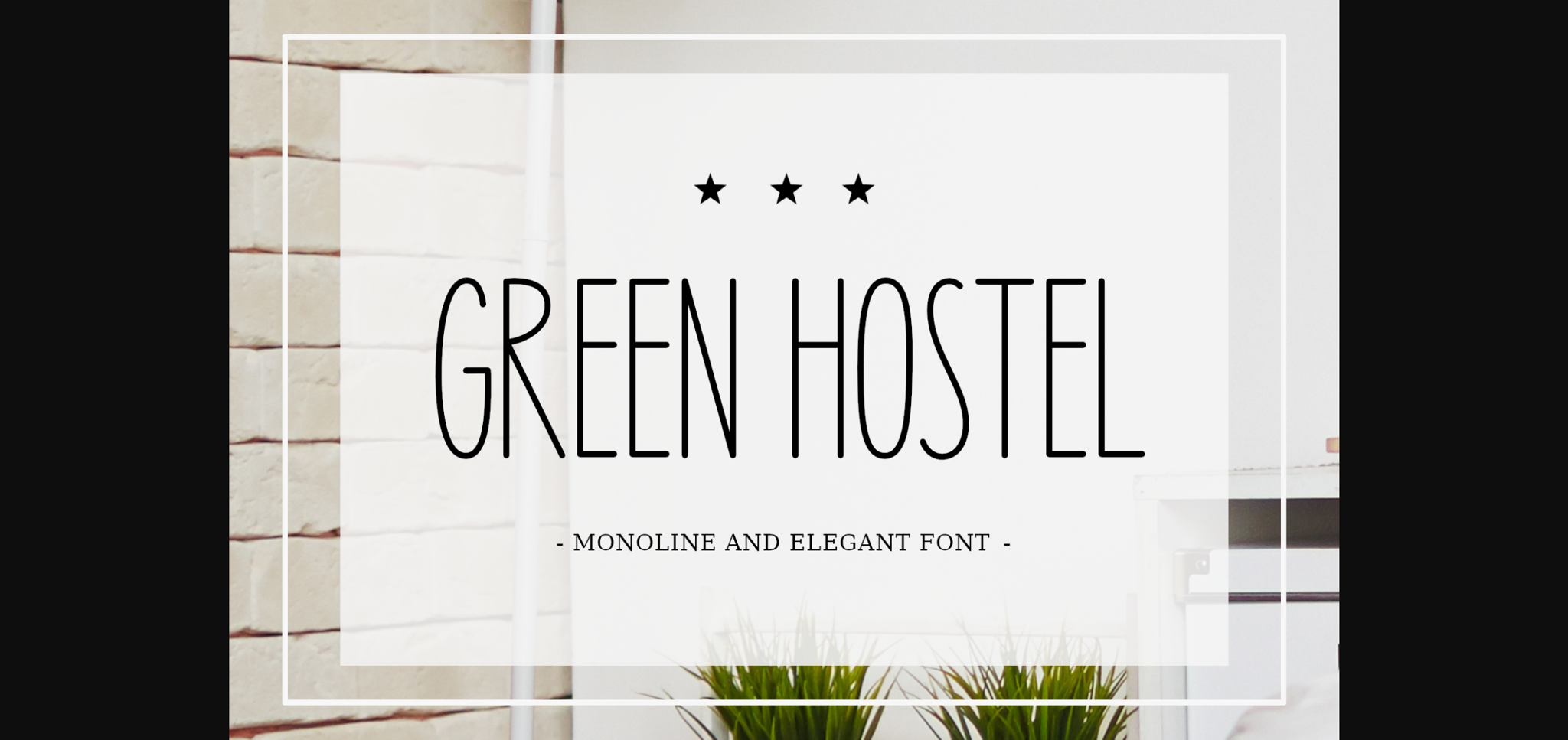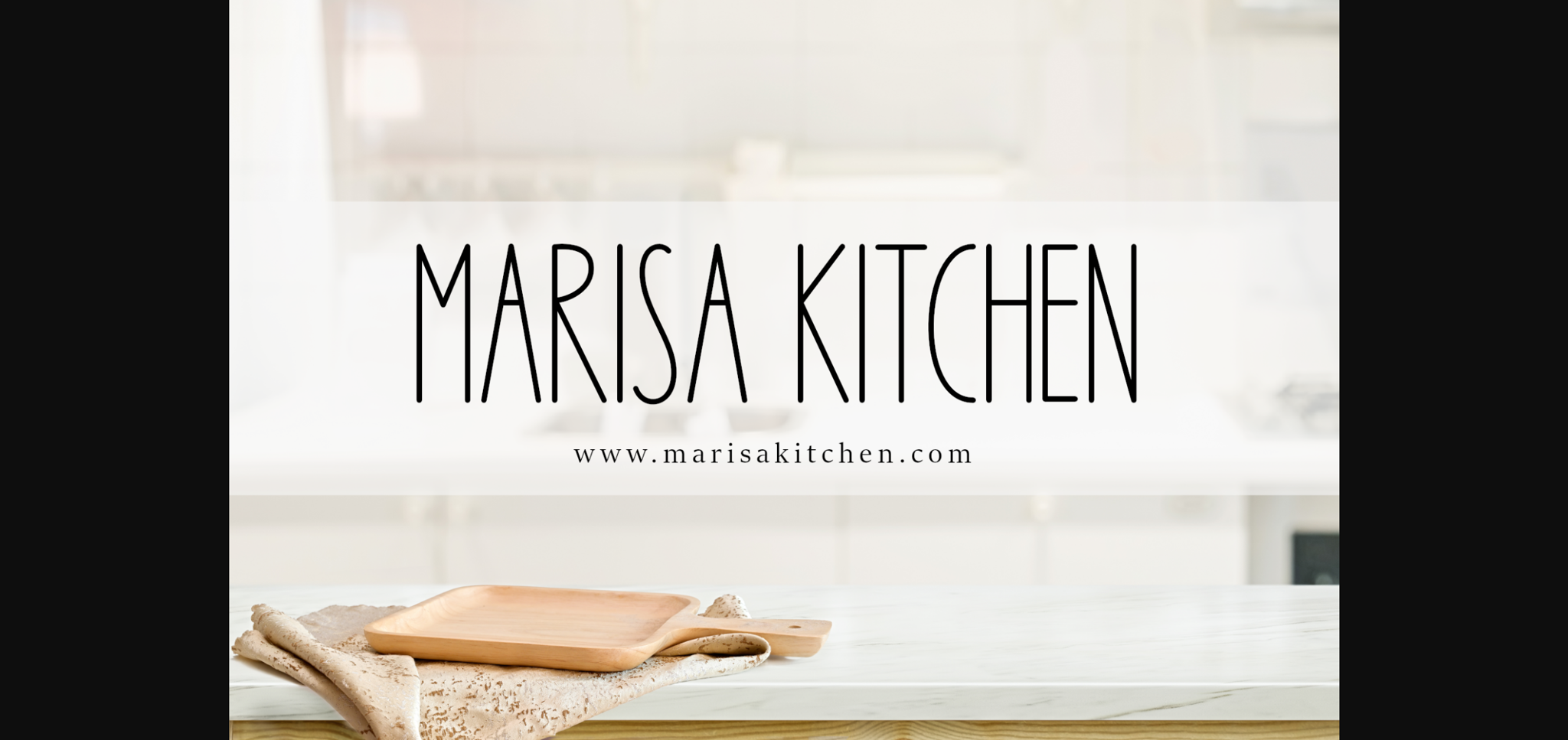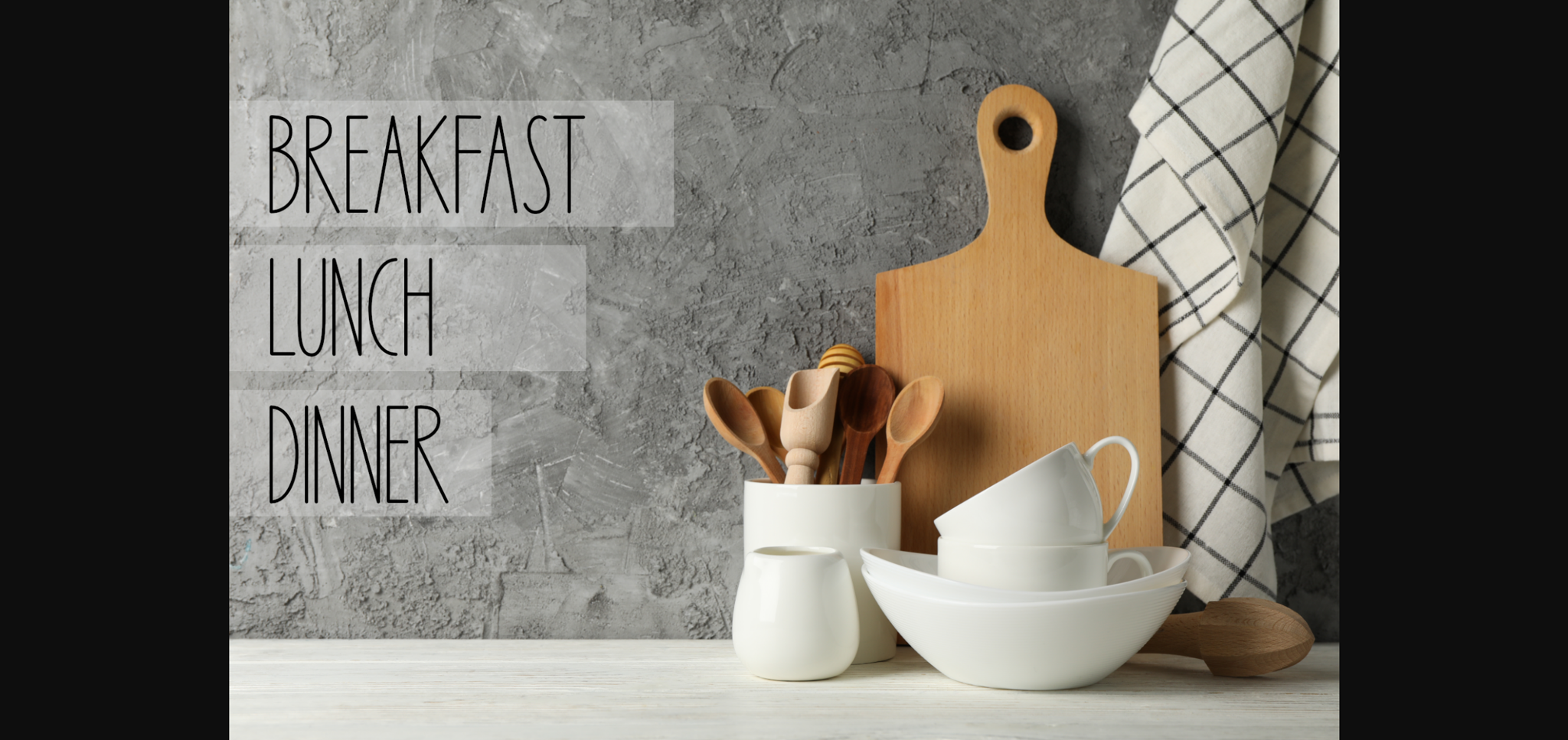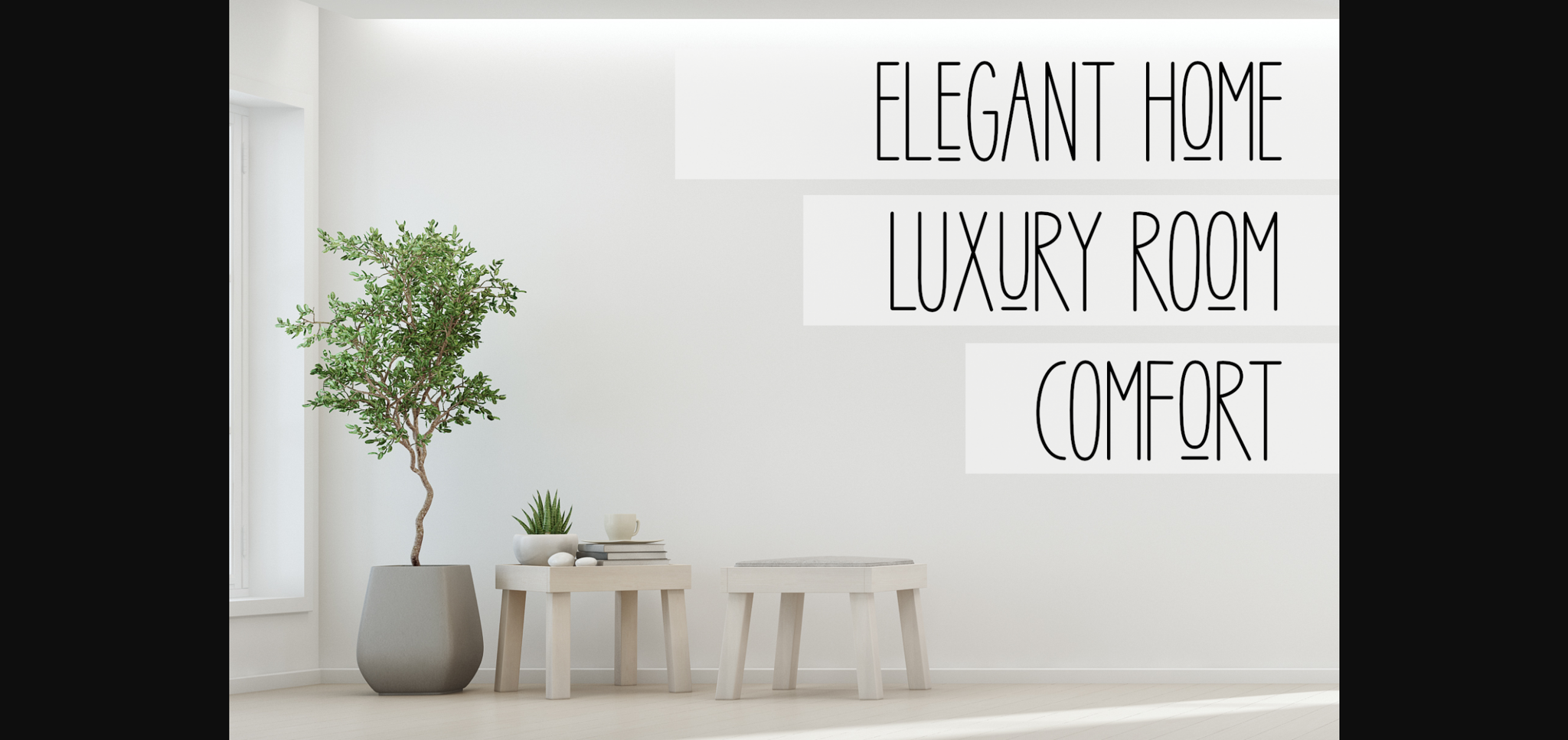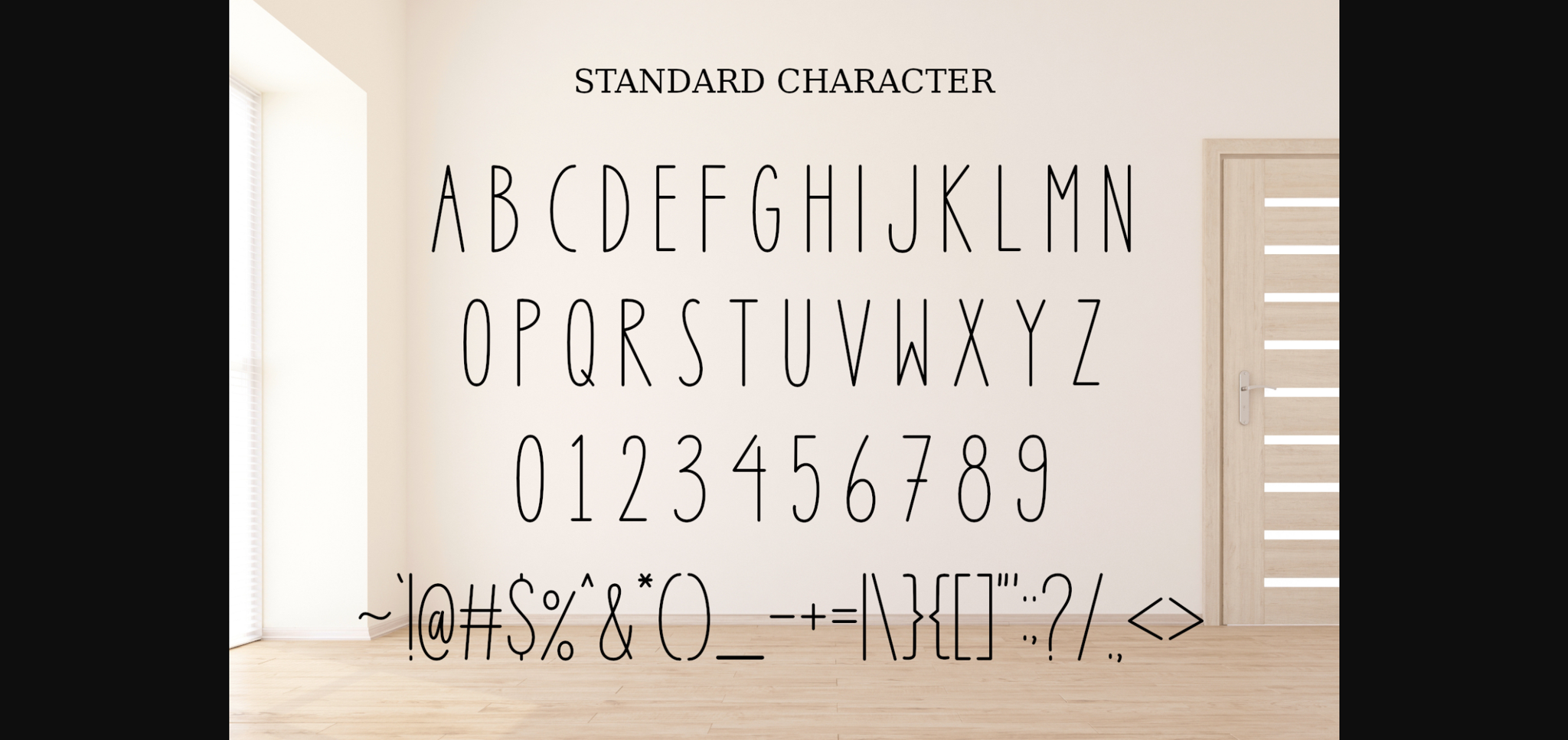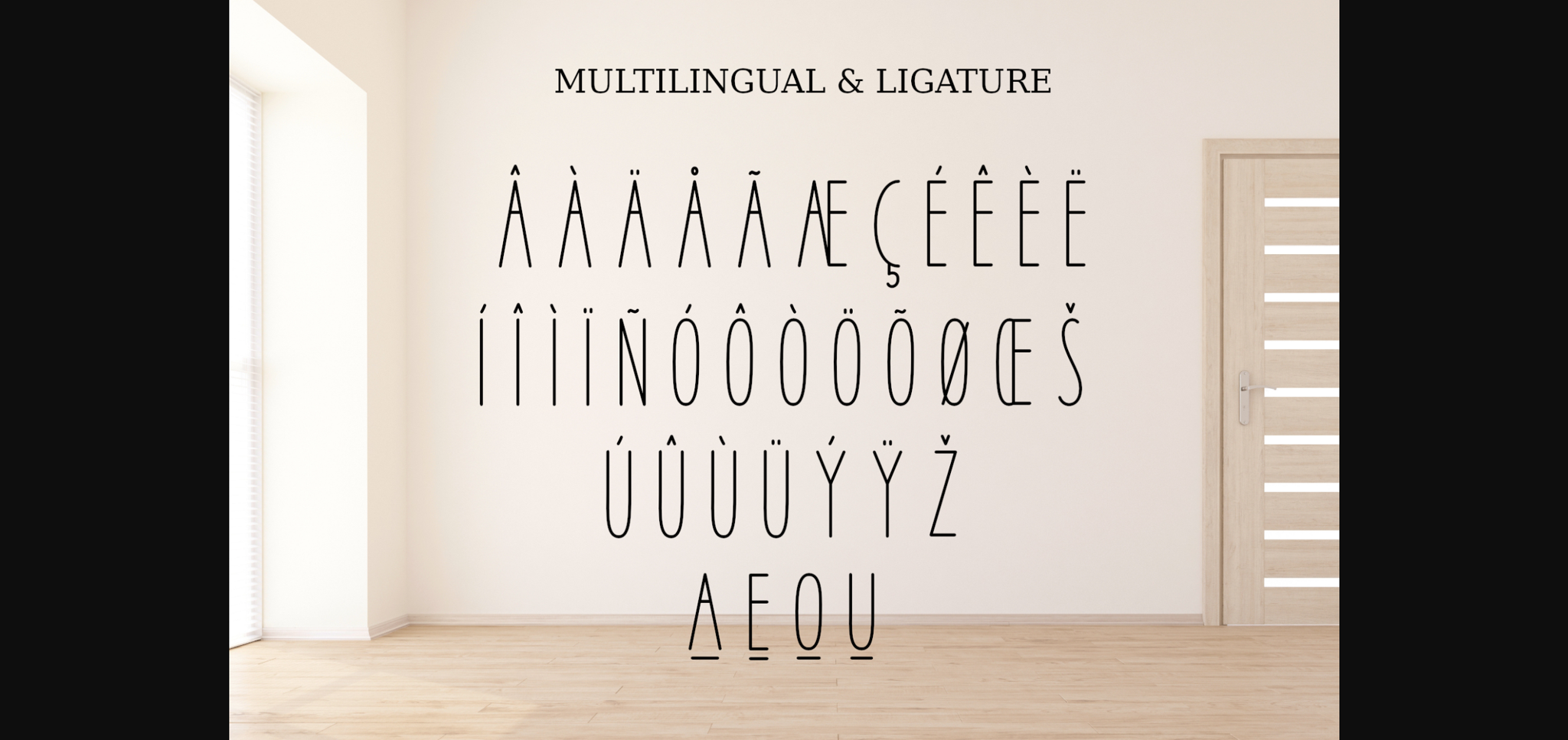
HomeSans Serif FontsGreen Hostel Font Sans Serif Fonts Green Hostel Font FacebookXPinterestWhatsApp 1 of 8 ... Green Hostel Font Poster 2... Green Hostel Font Poster 3... Green Hostel Font Poster 4... Green Hostel Font Poster 5... Green Hostel Font Poster 6... Green Hostel Font Poster 7... Green Hostel Font Poster 8... About Green Hostel Font Green Hostel is a thin and clean sans serif font. It can easily be matched to an incredibly large set of projects, so add it to your creative ideas and notice how it makes them stand out! DOWNLOAD NOW People also explored Olive Font Limitless Possibility Font Saleyon Font Migoove Font Gloss Sophia Rosabella Font Khalifah Font Saffior Font The Bright Road Font 274 0 TagsGreen Hostel Font Previous articleKalivo FontNext articleGalgony Font LEAVE A REPLY Cancel reply Comment: Please enter your comment! Name:* Please enter your name here Email:* You have entered an incorrect email address! Please enter your email address here Website: Save my name, email, and website in this browser for the next time I comment. Personal Use Free Goodline Font Personal Use Free Read more about this font Degrassi Personal Use Free Read more about this font Sushi Stroke Personal Use Free Read more about this font Sybil Green Personal Use Free Read more about this font BLOG Using Fonts in Digital Marketing: Tips to Strengthen Your Brand Identity In the realm of digital marketing, every visual element plays a crucial role in shaping a brand's identity, and fonts are no exception. The... Transform Your Website: Elevate Your Typography with 7 Best Web Font Generators Modern Sans-Serif Fonts That Brands Love in 2025 Best Fonts for YouTube Videos: Make Your Thumbnails Stand Out